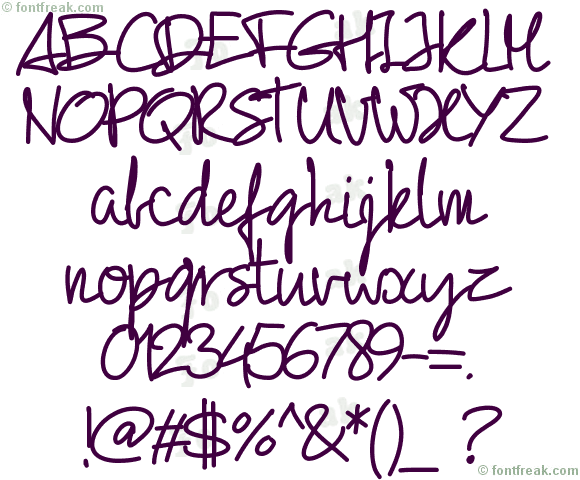
PW01Script
About PW01Script
PW01Script by Peax Webdesign is a captivating handwritten script font that exudes charm and personality. This font is characterized by its fluid strokes and playful curves, making it a perfect choice for projects that require a personal touch. The stroke weight varies throughout the characters, creating a dynamic contrast that adds visual interest. The spacing between letters is carefully considered, ensuring legibility while maintaining an organic feel. The decorative elements inherent in its design evoke a sense of warmth and creativity, making PW01Script an appealing choice for various applications.
This versatile font is ideal for wedding invitations, where its elegant yet informal style can enhance the romantic atmosphere. It also shines on restaurant menus, offering a unique flair that can make dish descriptions more enticing. Additionally, PW01Script is suitable for social media graphics, helping content creators add a personal touch to their posts. Graphic designers can leverage this font for branding projects, especially for businesses looking to convey a friendly and approachable image. Small business owners will find it particularly useful for promotional materials, as it helps to establish a connection with potential customers.